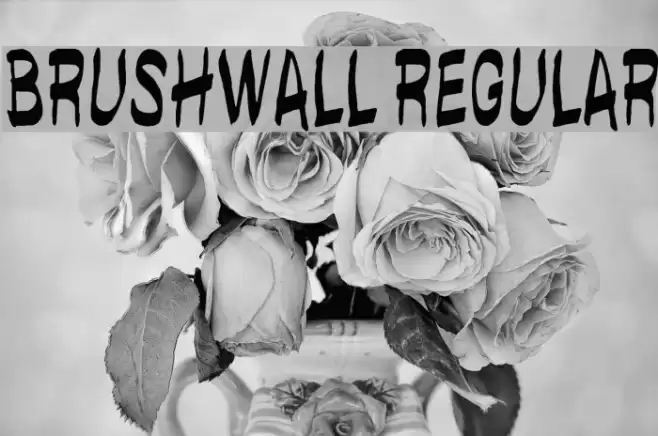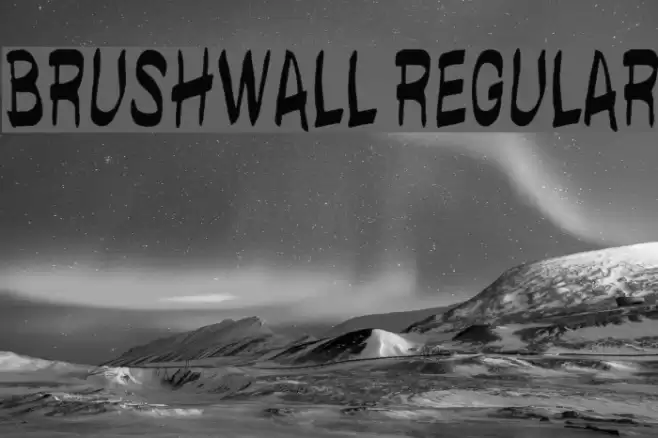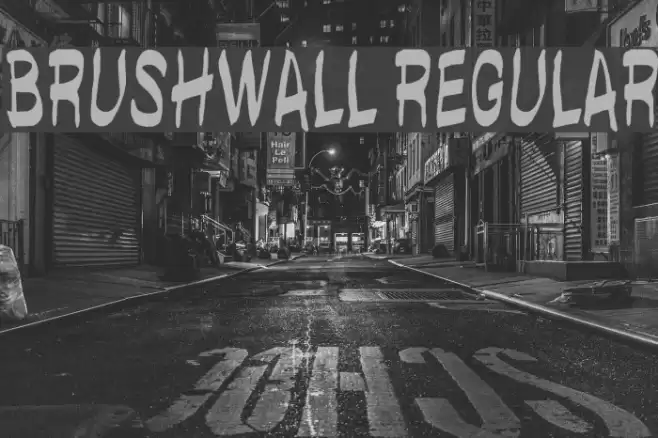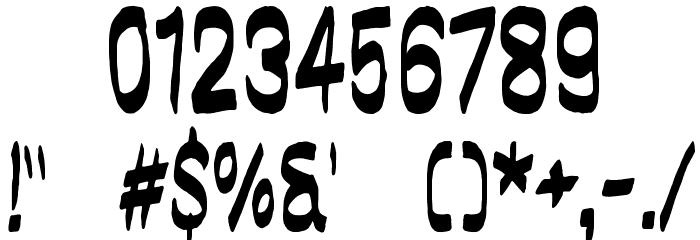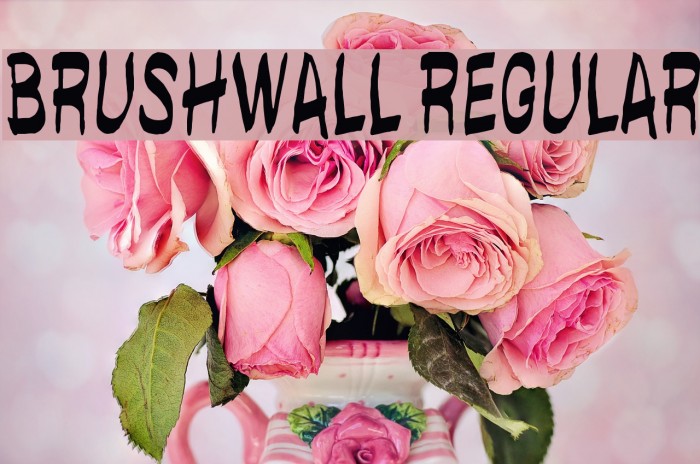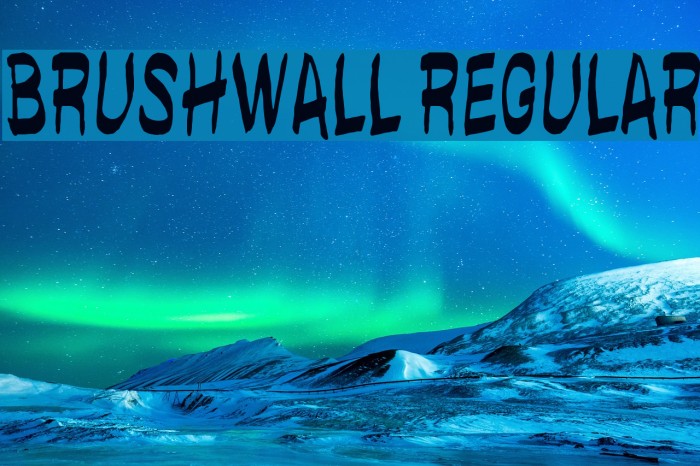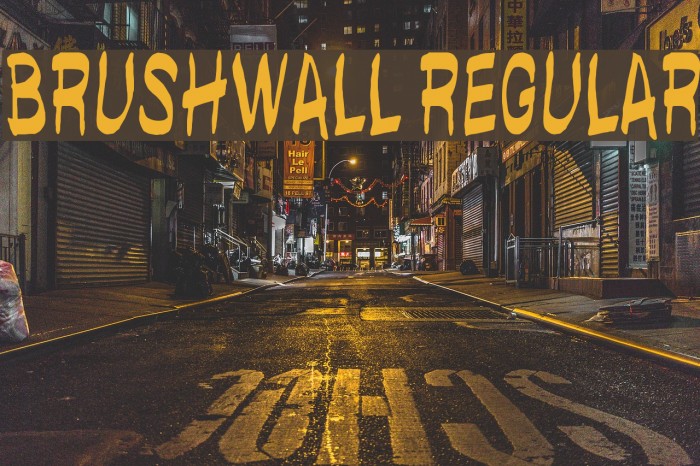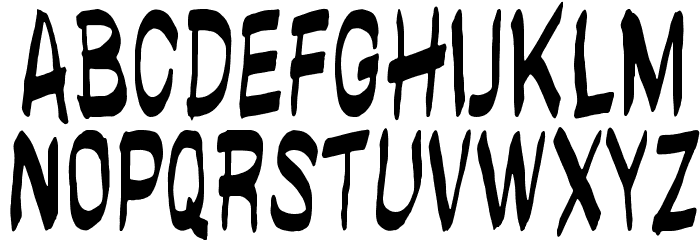
brushwall regular Font
brushwall regular Description
This font features a bold, hand-drawn style with a brush-like texture, giving it a dynamic and energetic appearance. The characters are slightly irregular, adding a personal and artistic touch. The uppercase letters are prominent and expressive, while the lowercase letters maintain a consistent flow. Numbers and special characters follow the same artistic style, ensuring a cohesive look across all text. The font's playful and informal nature makes it suitable for creative projects that require a personal touch.
A bold, hand-drawn brush-style font with an energetic and artistic flair from Kids fonts.
- Proposed Projects: Ideal for posters, artistic branding, social media graphics, and creative invitations.